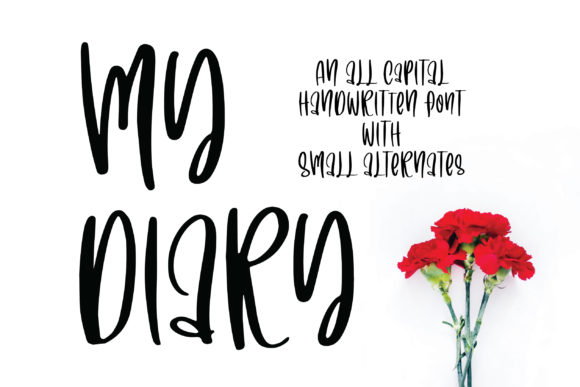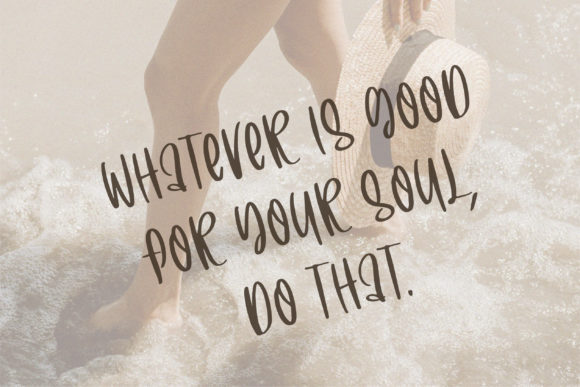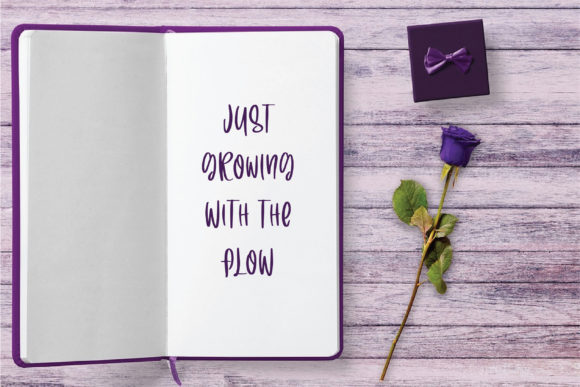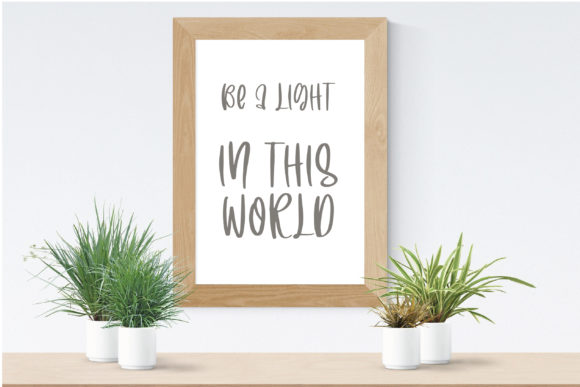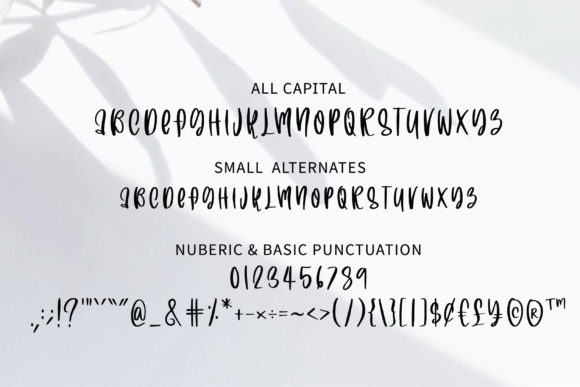
About My Diary Font
“My Diary” sounds like a charming and versatile handwritten font that can add a playful and friendly touch to a wide range of design projects. Its cute and quirky style opens up numerous creative opportunities. Here are some imaginative ideas on how to use “My Diary” font to make your designs stand out:
1. Journaling and Diary Entries: Use “My Diary” font to create digital or physical journal entries, adding a personal and whimsical touch to your thoughts and memories.
2. Scrapbooking: Incorporate “My Diary” font in your scrapbooking projects to make captions, titles, and journaling elements more expressive and fun.
3. Children’s Book Illustrations: Apply “My Diary” font in children’s book illustrations for character dialogue, onomatopoeias, or playful headings.
4. Cute Invitations: Design adorable and eye-catching invitations for birthday parties, baby showers, or special events using “My Diary” font.
5. Card Making: Create charming and unique greeting cards for various occasions, such as birthdays, holidays, or thank-you notes.
6. Handmade Crafts: Use “My Diary” font in DIY craft projects, like handcrafted signs, tags, and labels, to add a delightful handmade touch.
7. Cute Social Media Graphics: Craft engaging and cute social media posts, stories, or quotes using “My Diary” font to captivate your audience.
8. Personalized Prints: Design personalized prints with names or favorite quotes in “My Diary” font for unique and thoughtful gifts.
9. Party Decorations: Apply “My Diary” font in party decorations, such as banners, cupcake toppers, or party favors, for a cheerful and festive atmosphere.
10. Cute Merchandise: Use “My Diary” font on merchandise like T-shirts, mugs, or stickers, making adorable products with a playful twist.
11. Art Prints for Kids’ Rooms: Design whimsical art prints featuring inspiring quotes or adorable characters using “My Diary” font for children’s bedrooms.
12. Fun Educational Materials: Create engaging educational materials, like flashcards or worksheets, using “My Diary” font to make learning enjoyable for kids.
13. Branding for Kid-Focused Businesses: Apply “My Diary” font in the branding of kid-focused businesses, like toy stores, daycare centers, or children’s boutiques.
14. Playful Packaging Design: Use “My Diary” font in packaging design for products targeting children or those young at heart.
15. Animated Titles: Apply “My Diary” font in animated titles or text overlays for playful and captivating video content.
16. Cute Website Elements: Incorporate “My Diary” font in website headers, buttons, or banners to add a touch of fun to your online presence.
17. Baby Announcement Cards: Design adorable baby announcement cards using “My Diary” font to introduce the newest member of the family.
18. Cute Blog Graphics: Use “My Diary” font in blog graphics, like featured images or section headings, to create a cheerful and welcoming blog.
19. Playful Event Signage: Apply “My Diary” font in event signage for kids’ parties or family gatherings to set a joyful and lighthearted tone.
20. Cute Apparel Design: Use “My Diary” font in apparel design for kids’ clothing or accessories, showcasing delightful and whimsical phrases.
In summary, “My Diary” is a cute and quirky handwritten font that can add a sense of playfulness and charm to various design projects. Embrace its relaxed and friendly style to make your creations stand out and create a delightful experience for your audience. Have fun exploring the many creative possibilities and let “My Diary” font elevate your designs with its unique personality!